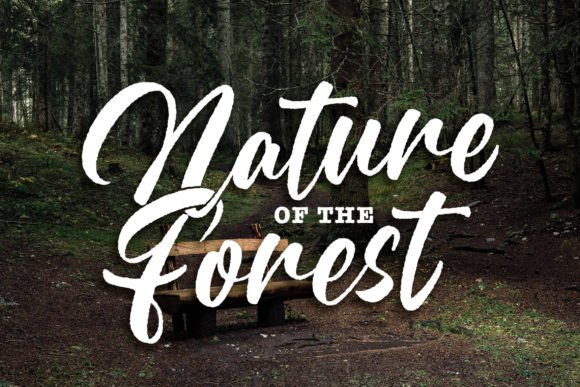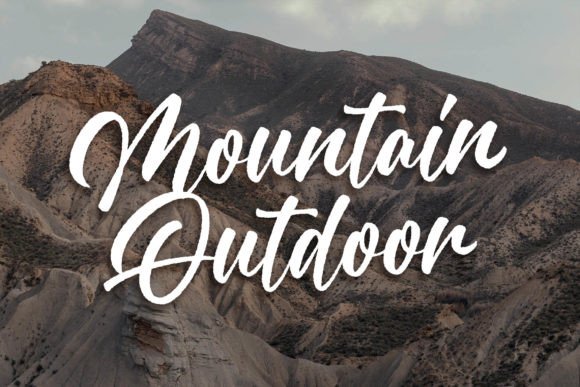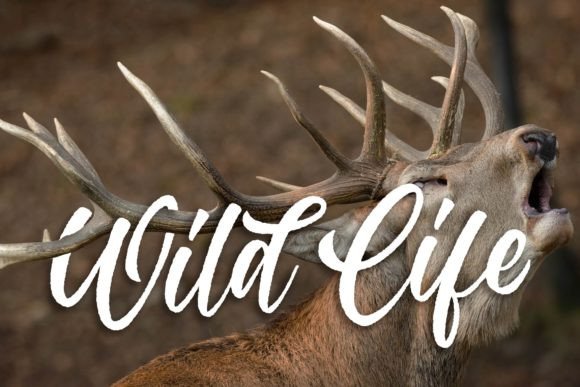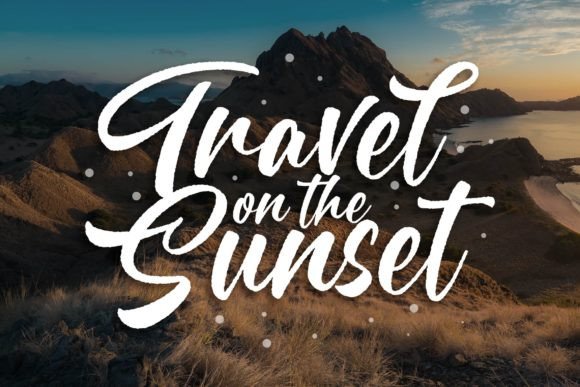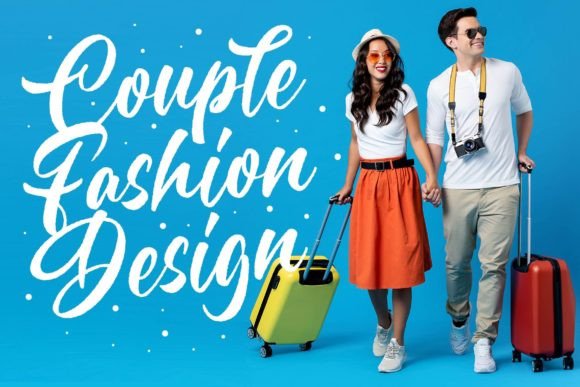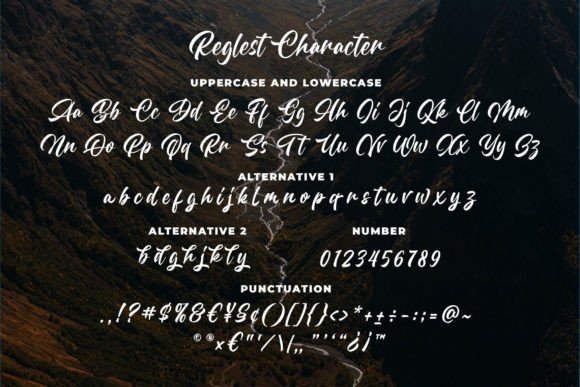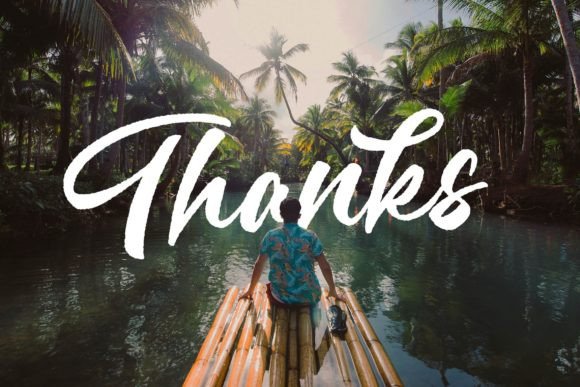
Reglest Font
About Reglest Font
Introducing “Reglest,” a modern natural handlettering script font designed to make your creations stand out and inspire creativity, imagination, and endless fun. This font is the perfect choice for designs that seek attractiveness and playfulness. With a high level of aesthetics, Reglest is well-suited for a variety of applications, including book covers, posters, packaging, merchandise, logotypes, and much more. Additionally, this font is PUA encoded, providing easy access to all glyphs and swashes.
Reglest is crafted with a natural handlettering style, bringing an organic and authentic touch to your designs. The fluidity of the script enhances the overall aesthetics, making it suitable for projects that require a modern and dynamic look.
The versatility of Reglest makes it a great choice for various design applications. Whether you’re working on a book cover that needs a touch of elegance, a poster that requires playful typography, or packaging that demands creativity, this font is designed to meet your diverse design needs.
For merchandise and logotypes, Reglest adds a unique and distinctive flair. Its natural handlettering style ensures that your brand or product stands out with a touch of authenticity and creativity.
The PUA encoding of Reglest further enhances its accessibility, allowing you to effortlessly access all the glyphs and swashes. This feature provides you with the flexibility to customize and experiment with different design elements, making the font a valuable asset for creative projects.
In summary, Reglest is more than just a font; it’s a creative tool designed to bring a modern natural handlettering script style to your projects. Whether you’re working on book covers, posters, packaging, merchandise, logotypes, or any design that requires a touch of creativity, let Reglest be the font that adds a playful and attractive dimension to your creative endeavors.